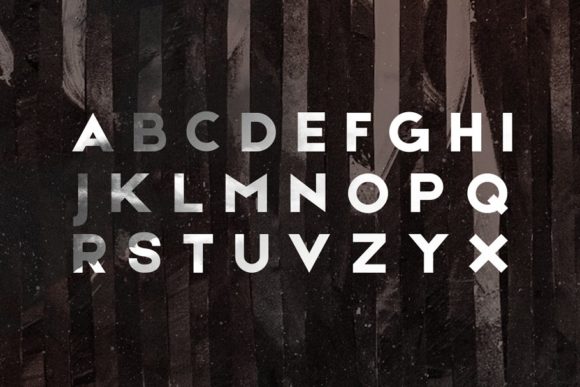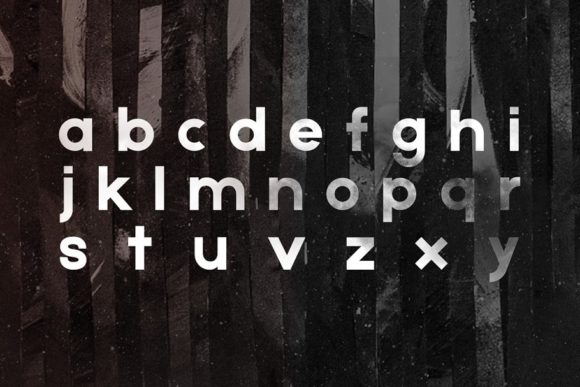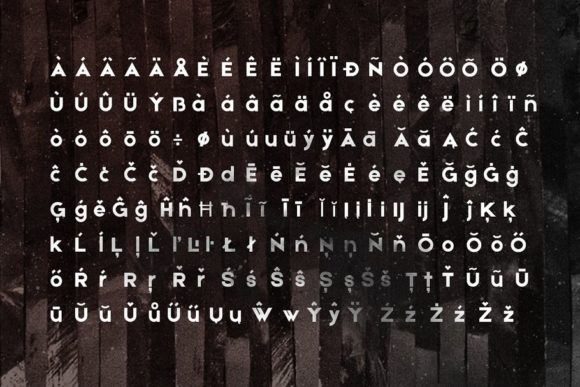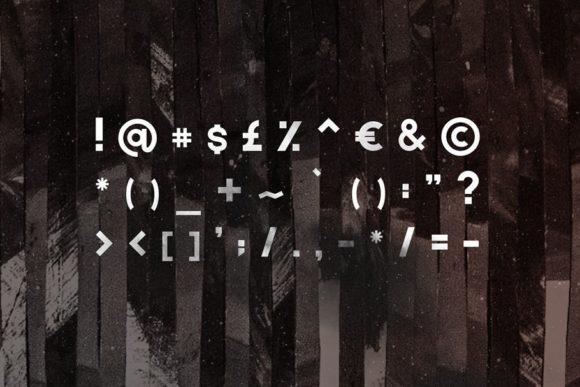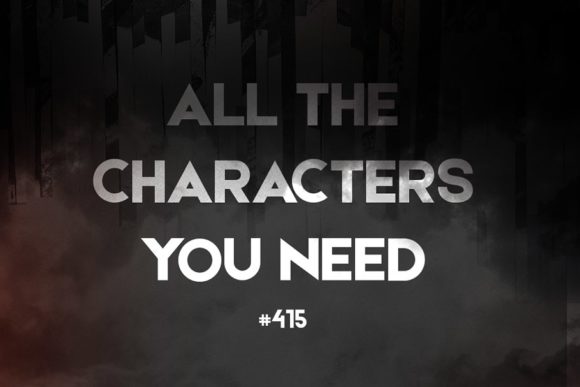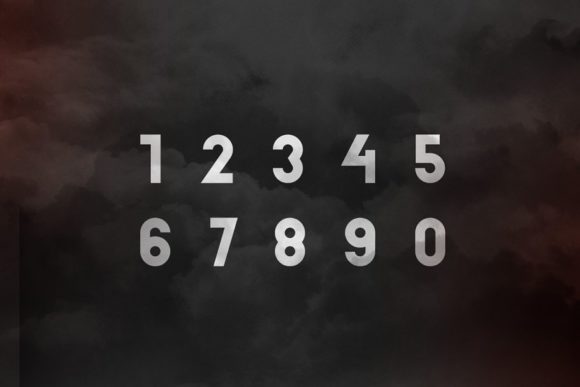
The Etna Font: A Simple yet Powerful Sans Serif for Your Designs
I’ll never forget the time I was working on a project for a client who wanted a clean and modern look. I spent hours scrolling through font libraries, but nothing seemed quite right. That was until I stumbled upon the Etna font. With its simple and casual sans serif design, it was exactly what I needed to give my project a fresh and professional feel.
A First Impression: What I Love About Etna
The Etna font has quickly become a go-to in my design toolkit, and for good reason. Here are a few things that I love about it:
- ✨ Clean and simple design: The Etna font has a neat and beautiful arrangement of letters that makes it perfect for both formal and non-formal designs.
- ✅ Highly versatile: Whether you’re working on a logo, brochure, or website, the Etna font adapts seamlessly to different contexts.
- 💡 Ease of readability: The font’s clear and concise lettering makes it easy to read, even at smaller sizes.
While the Etna font is incredibly useful, there are a few quirks to be aware of:
- 🤔 Limited stylistic options: As a sans serif font, Etna doesn’t offer a wide range of stylistic alternates or OpenType features.
- ⚠️ Not ideal for body text: While Etna is great for headings and titles, it may not be the best choice for longer blocks of body text.
The Story Behind Etna
The Etna font was designed with the goal of creating a simple yet powerful sans serif font that could be used in a wide range of design contexts. While the designer’s exact inspiration may be unknown, it’s clear that Etna was crafted with attention to detail and a passion for clean, modern design.
| What makes Etna a good choice for designers? | The Etna font’s clean and simple design makes it highly versatile and easy to read, making it perfect for a wide range of design projects. |
| Is Etna suitable for body text? | While Etna is great for headings and titles, it may not be the best choice for longer blocks of body text. Consider using a serif font for easier reading. |
| Can I use Etna on mobile devices? | Yes, the Etna font is optimized for digital use and can be used on mobile devices. Its clear and concise lettering makes it easy to read on smaller screens. |